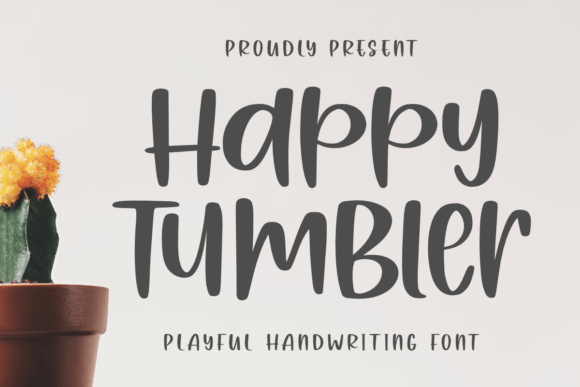
Adding a Splash of Joy to Your Designs
Do you remember the excitement of creating something special for a loved one? Maybe it was a handmade Mother’s Day card or a customized t-shirt for a friend’s birthday. Whatever the occasion, you wanted to make it extra special with a personal touch. That’s where the right font comes in – and we’re about to introduce you to a game-changer: Happy Tumbler Font.
This cheerful handwritten font is designed to bring a smile to your audience’s faces. With its smooth strokes and friendly vibes, Happy Tumbler Font is perfect for designing a wide range of creative projects, from tumblers and mugs to kids’ shirts and stickers. Whether you’re a professional designer or a crafty hobbyist, this font is a valuable addition to your toolkit.
Key Features of Happy Tumbler Font
- Font Style: A modern, sans-serif font with rounded edges, perfect for creating a friendly and approachable atmosphere.
- Unique Characteristics: Features a unique, hand-drawn feel with subtle irregularities, adding a touch of personality to your designs.
Happy Tumbler Font Review
When I first laid eyes on the Happy Tumbler Font, I couldn’t help but feel a spark of excitement ✨. The cheerful and bubbly vibe it exudes is perfect for creating a fun and energetic atmosphere. The font’s unique blend of circular and rounded shapes makes it an excellent choice for designs that require a playful touch.
The font’s versatility is another aspect that I truly appreciate ✨. It’s suitable for a wide range of applications, from children’s book covers to social media graphics and even food labels. The Happy Tumbler Font also comes in a variety of styles, including bold, regular, and light weights, which gives designers the freedom to experiment with different looks.
While the Happy Tumbler Font has many strengths, there are a few areas where it falls short ⚠️.
- Some letters may be difficult to read at small font sizes.
- The font may not be ideal for formal or professional designs, as its playful nature may come across as unprofessional.
- There are limited language support and special character options.
The Happy Tumbler Font is a fantastic choice for designers looking to add a touch of whimsy to their projects. While it may have some limitations, its strengths far outweigh its weaknesses. With a little creativity and experimentation, this font can help bring a smile to your audience’s faces and create a lasting impression.
The Happy Tumbler Font is ideal for creating playful and whimsical designs, such as:
Children’s party invitations and decorations
Baby shower invitations and decorations
Food and beverage labels
Custom t-shirt designs